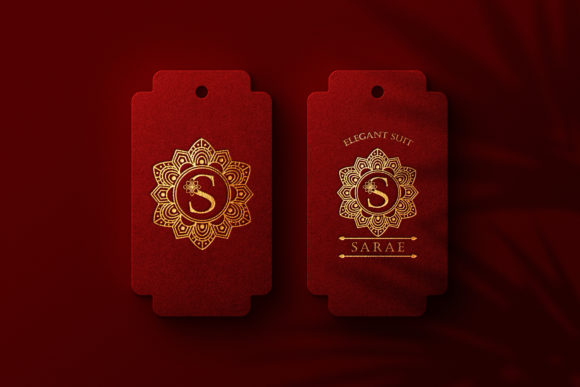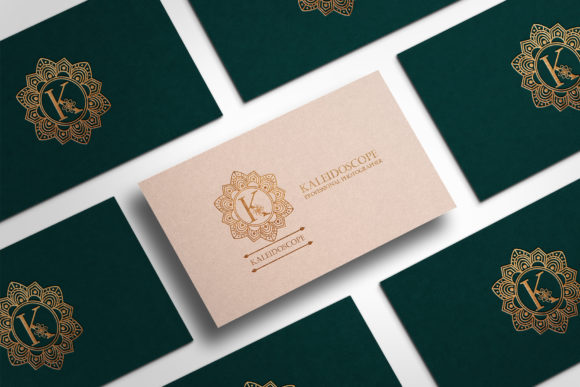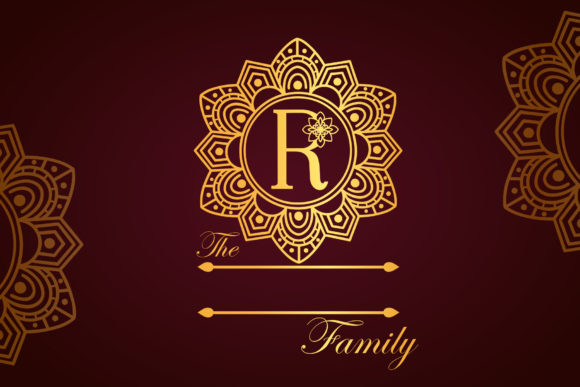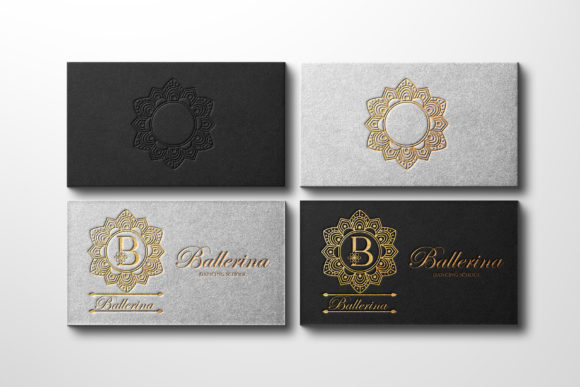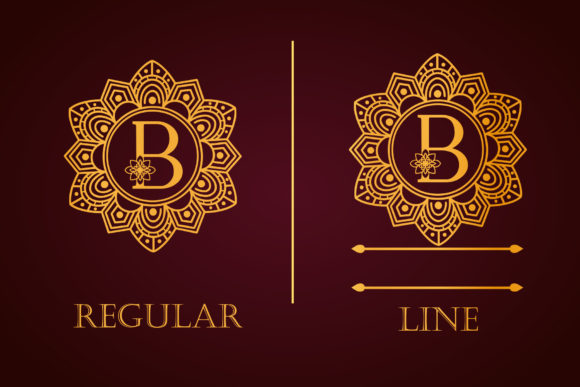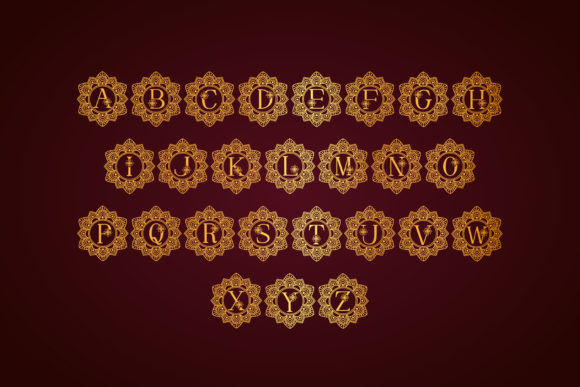
Elegant Mandala Monogram Font: The Perfect Touch of Whimsy in Your Designs
Have you ever sat down with a blank piece of paper, a blank computer screen, and a spark of creativity that refuses to be ignored? It’s that moment when the possibilities feel endless, and the only thing holding you back is the fear of not quite capturing the vision in your mind. For designers, this moment is a familiar friend, and the right font can be the difference between a great idea and a truly unforgettable creation.
Enter the Elegant Mandala Monogram Font, a stunning decorative font that adds an extra layer of elegance and whimsy to any design. Whether you’re creating a wedding invitation, a social media post, or a greeting card, this font is sure to captivate and inspire. Its lovely ornaments and authentic feel make it a valuable asset for any designer looking to add a touch of sophistication and personality to their work.
Elegant Mandala Monogram Font Key Features
- Unique Characteristic: This font is a beautifully designed monogram font featuring intricate mandala patterns, perfect for adding an elegant touch to wedding invitations, stationery, and other special occasion designs.
- Monogram Styles: The font includes a variety of monogram styles, including single-letter, double-letter, and custom monogram options, allowing users to create unique and personalized designs.
- Character Count: The font includes a large character set, with over 200 unique characters, including uppercase and lowercase letters, numbers, and special characters.
Elegant Mandala Monogram Font Review
I recently had the chance to work with the “Elegant Mandala Monogram Font” and overall, I was quite impressed. Here’s my honest review:
- ✨ Beautifully intricate designs: The font has some stunning, hand-crafted elements that add a touch of elegance to any design.
- ✨ Customization options: The font comes with a range of customization options, including size, color, and spacing, making it easy to adapt to different design styles.
- ✨ High-quality vector files: The font includes high-quality vector files, making it easy to resize and use in various design applications.
- ⚠️ Limited character set: The font only includes a limited set of characters, which may not be suitable for extended text use.
- ⚠️ Not ideal for small text: The intricate designs can make the font difficult to read when used in small text sizes.
I would definitely recommend the “Elegant Mandala Monogram Font” for projects where a touch of elegance and sophistication is required. However, it’s essential to keep in mind its limitations and use it judiciously. With the right design approach, this font can add a beautiful and unique touch to your projects.
Elegant Mandala Monogram Font Guide
The Elegant Mandala Monogram Font is a versatile and stylish font that can be used in various design applications. To use it, follow these steps:
Use the Elegant Mandala Monogram Font in combination with other design elements, such as graphics and textures, to create a unique and eye-catching design.
Experiment with different font sizes, colors, and styles to achieve the desired effect.
The Elegant Mandala Monogram Font is perfect for:
Creating custom invitations and event graphics
Designing logos and brand identities
Adding a touch of elegance to presentations and documents